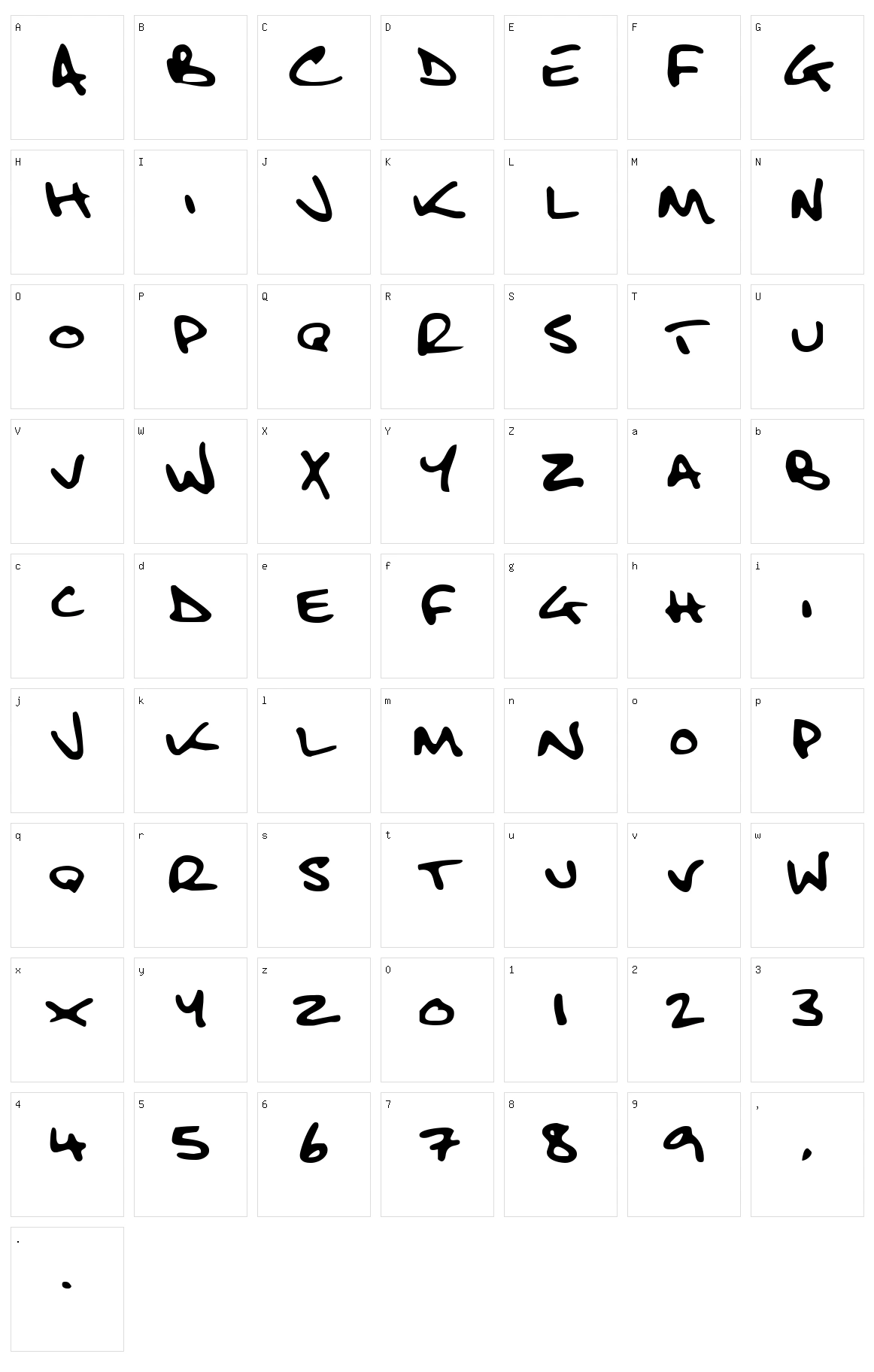
Fatboy Slim BLTC Compiled by Brian Kent
The characters in this Font are from the Hand written
Track Listing on the back of Fatboy Slim's album 'Better
Living Through Chemistry'. (I think it's Norman Cook's
[aka Fatboy Slim] handwriting)